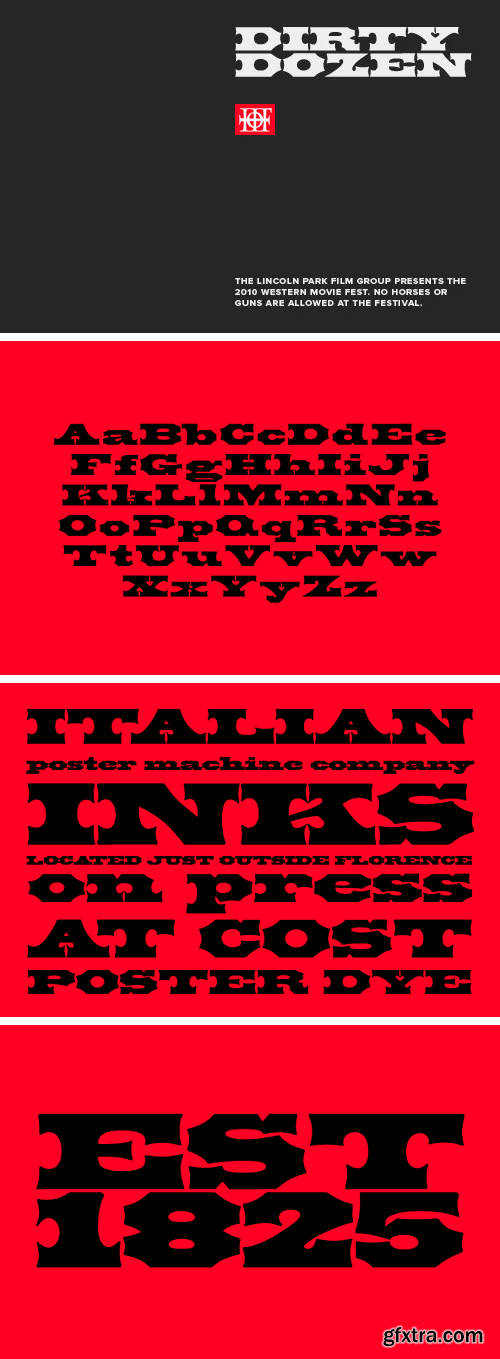
P22 Tuscan Expanded Font
P22 Tuscan Expanded is a digitization of the mid 19th century wood type font "Antique Tuscan Expanded - Wells & Webb 1854". Specimens of this font are rarely, if ever, seen with a lower case. It is noted in the book "American Wood Type 1828-1900", by Rob Roy Kelly that the lower case is "missing". This version was digitized from a recently discovered full set including all lower case plus ff ligatures. One unique feature of this design is the heart shape formed in the V, X & Y.